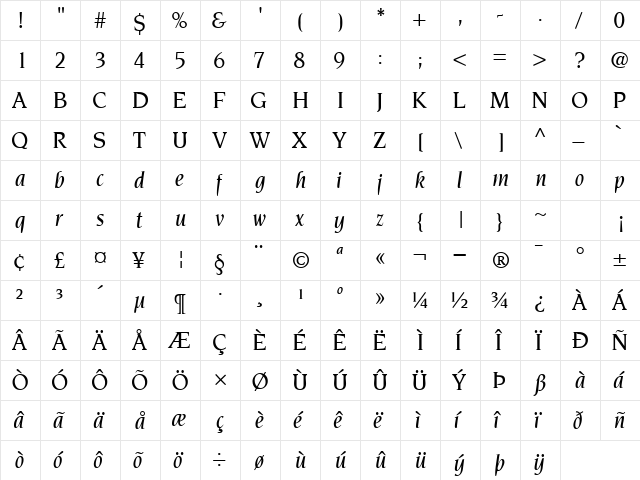
TridentMediumSSK Italic Font Preview
TridentMediumSSK Italic
Design Context for TridentMediumSSK Typeface
TridentMediumSSK is a composed and adaptable typeface that performs quietly and consistently across a wide range of design contexts. Its italic angle brings a sense of urgency and motion to the letterforms.